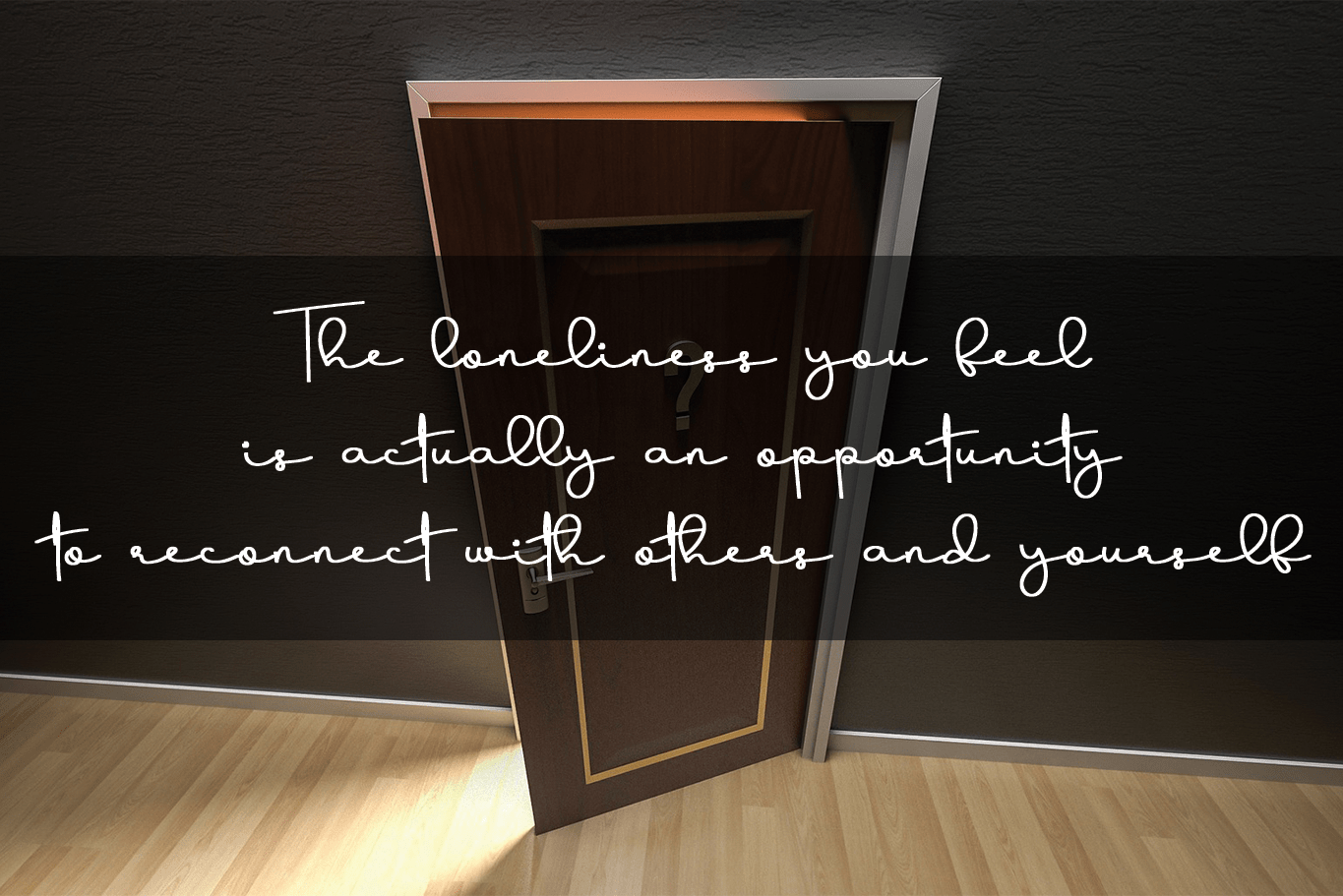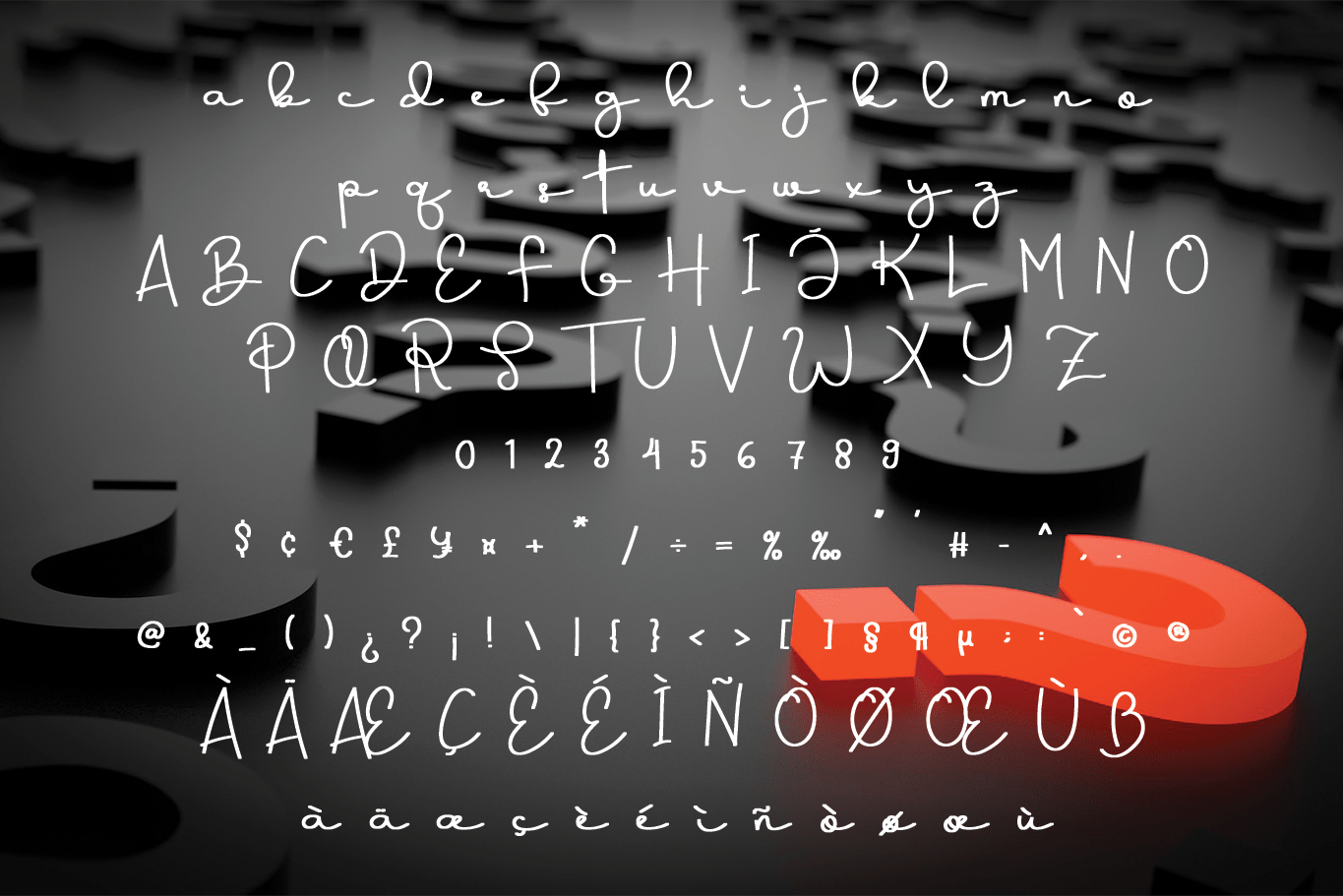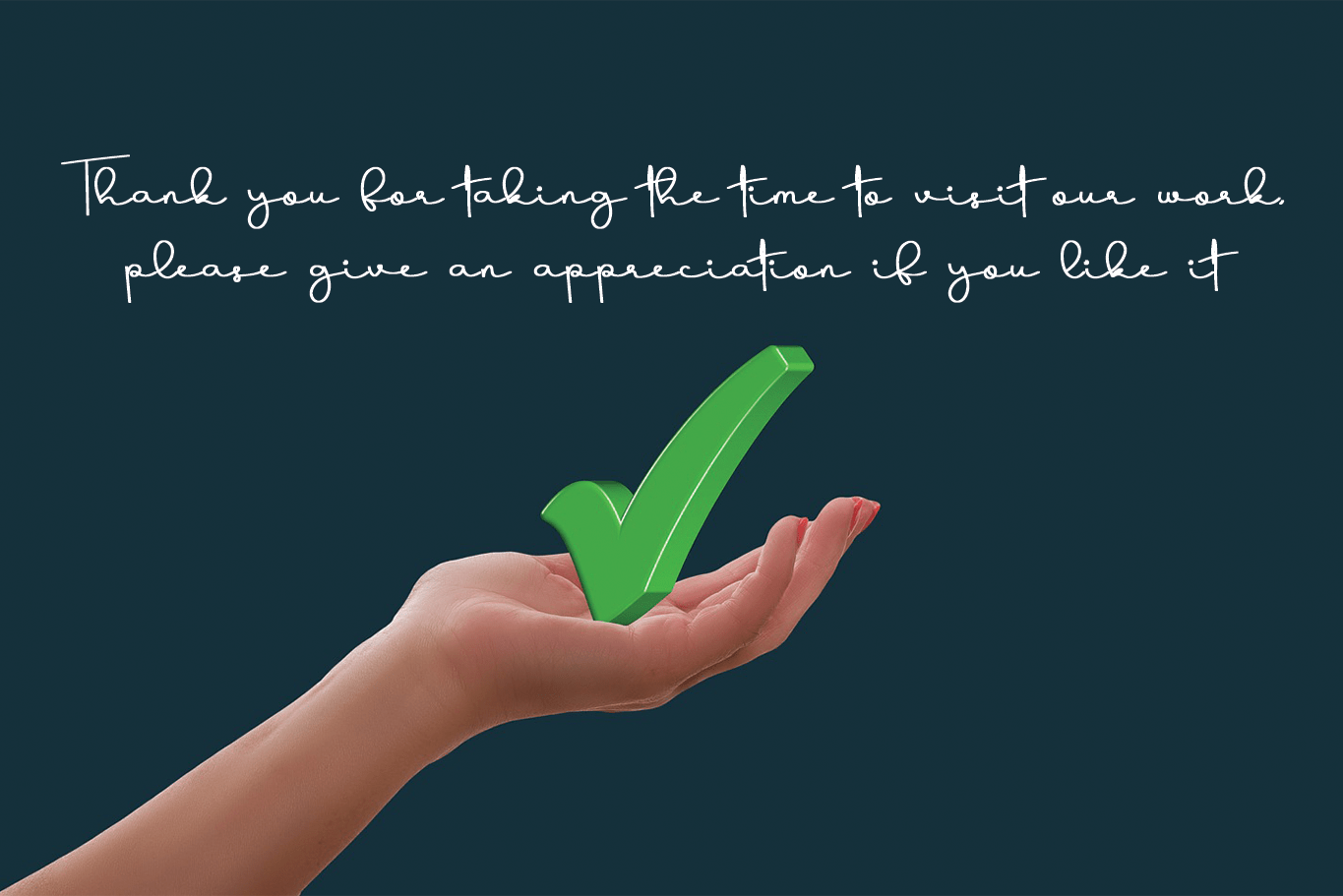
Quality Time Font
Quality Time Handwritten Font
This is a beautiful and delicate script font. It has a classy, elegant and modern look that can be used for logos, branding, invitations, stationery, wedding designs, social media posts, and much more!